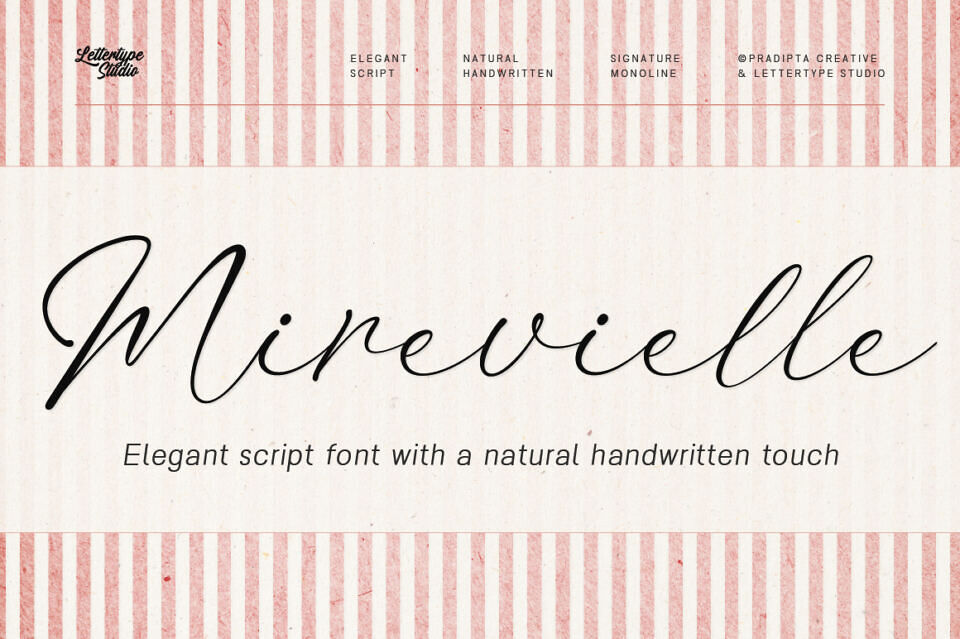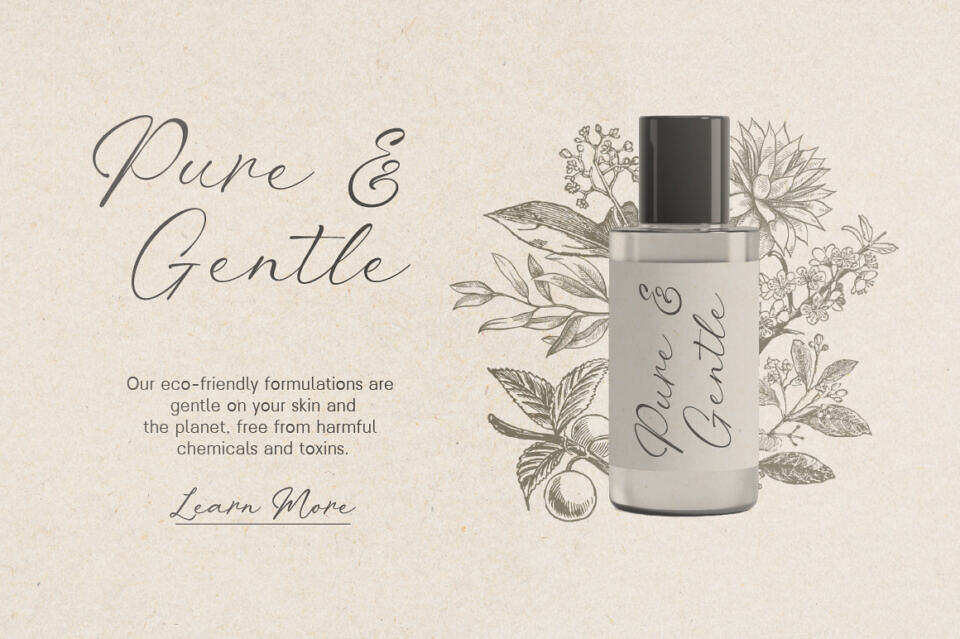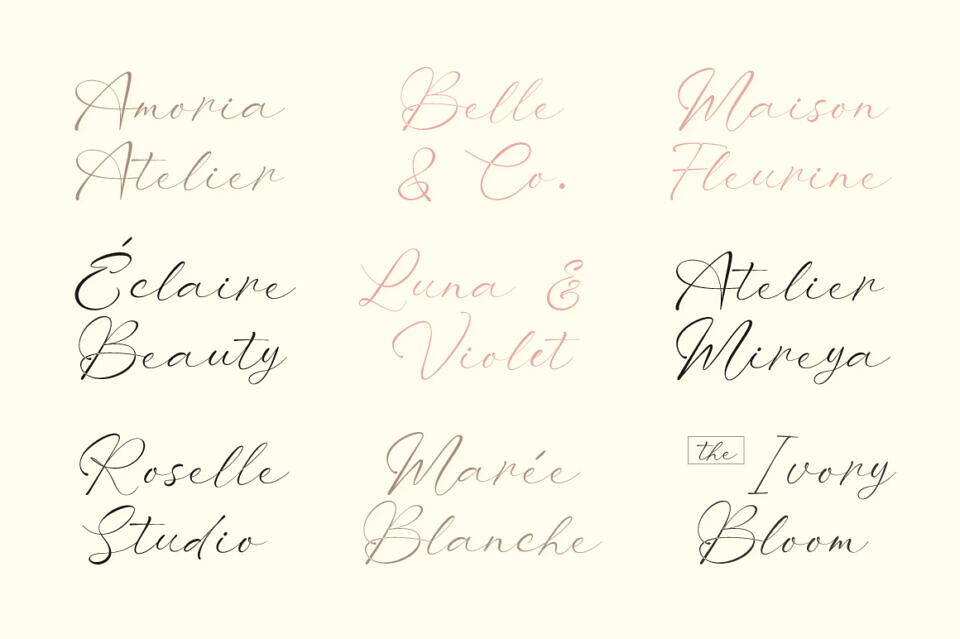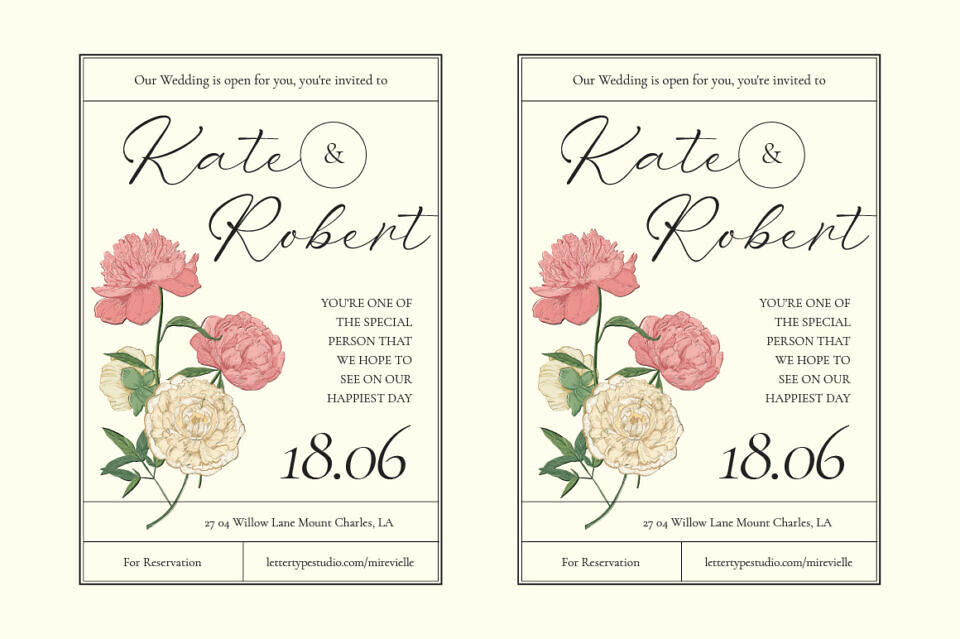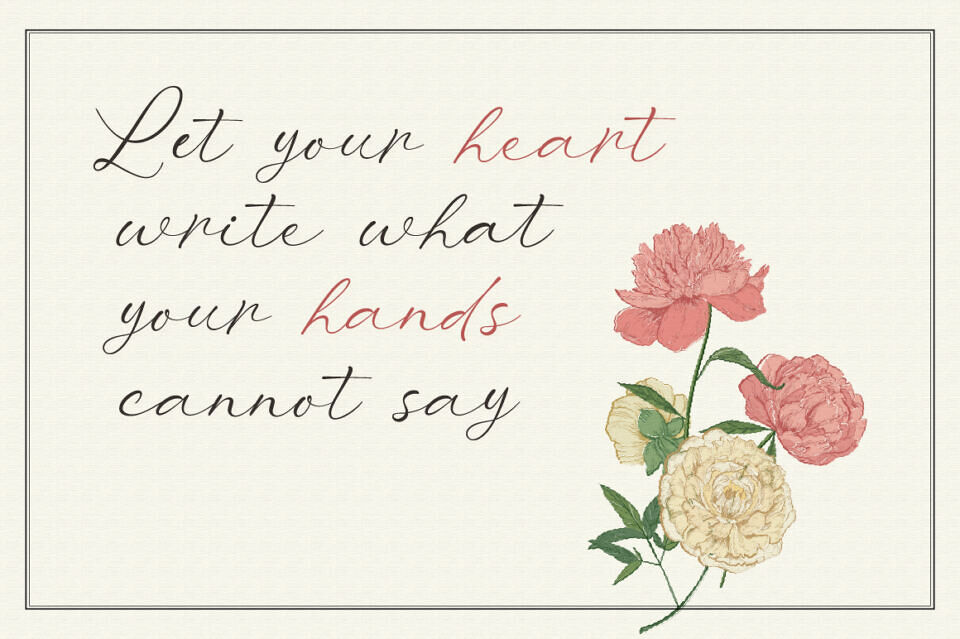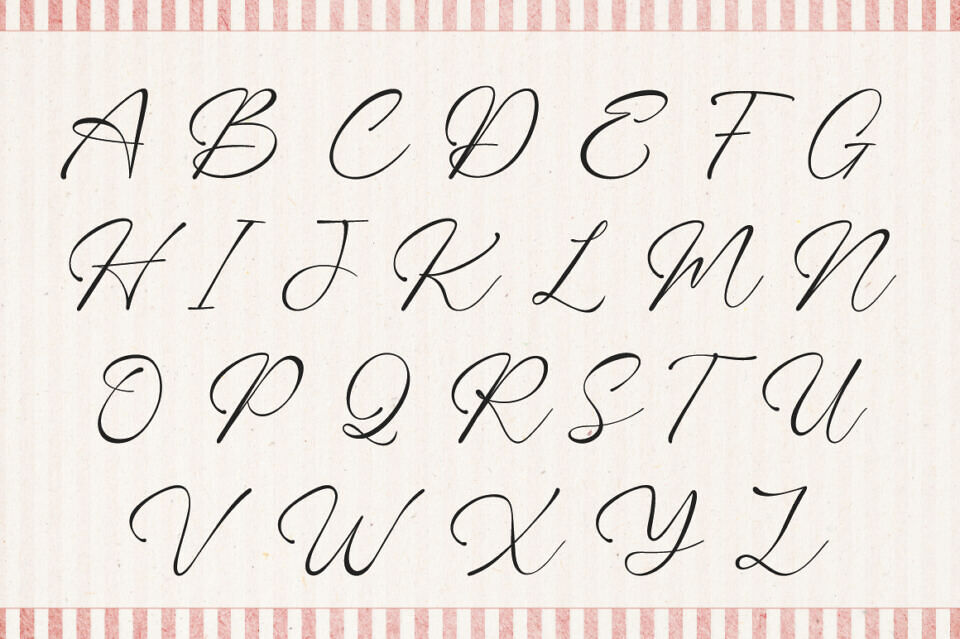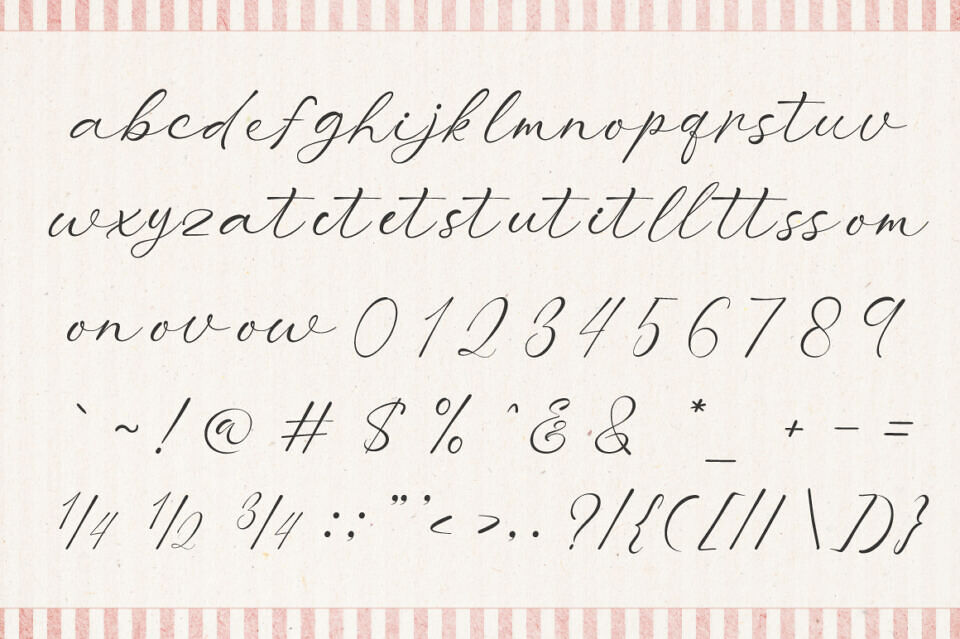
Mirevielle Font
Mirevielle is a handcrafted signature script made for elegant branding and high-end design. Every glyph was drawn with a delicate rhythm — smooth, natural, and full of character. The flow of each letter feels like a personal signature, balancing classic grace and modern sophistication. From “tt” ligatures that dance effortlessly to elongated loops in “L”, “B”, and “R”, Mirevielle celebrates beauty in subtle detail.
Designed especially for beauty logos, packaging, and editorial titles, Mirevielle delivers that premium look that feels human, not mechanical. The thin ink-like strokes, graceful alternates, and flowing connections give a soft, luxurious presence on every canvas — from business cards to perfume labels. Includes stylistic sets, swashes, and multilingual support for creative flexibility.